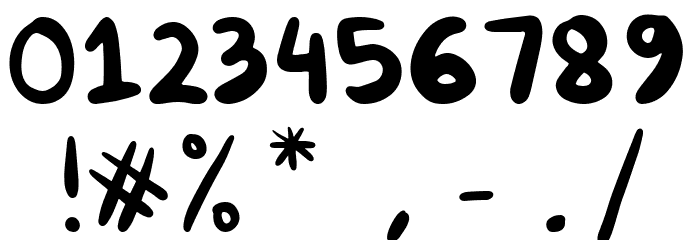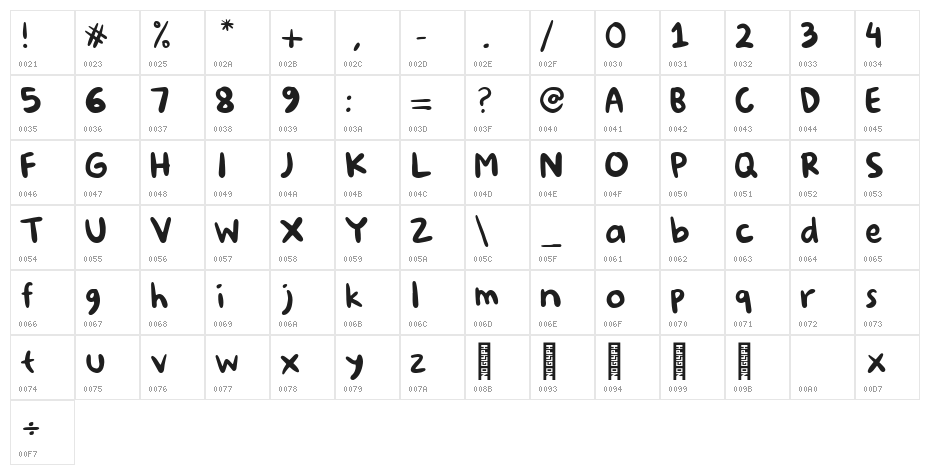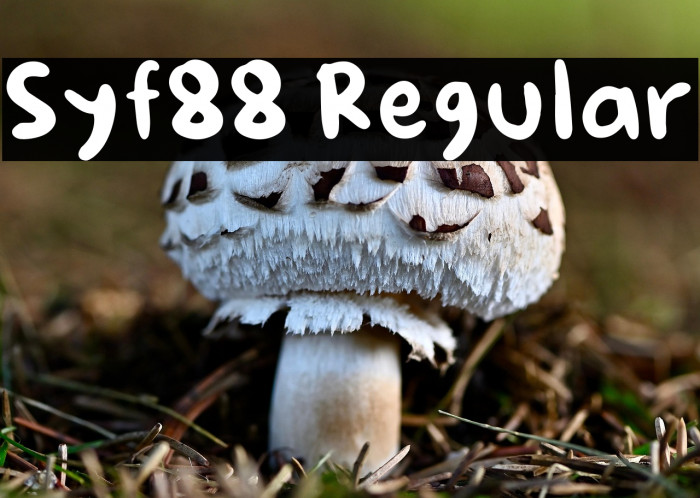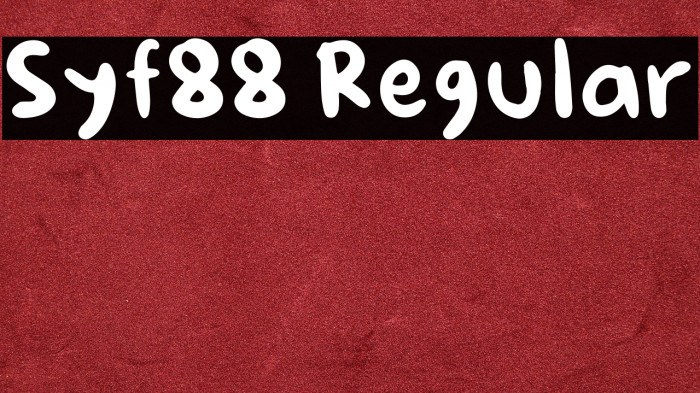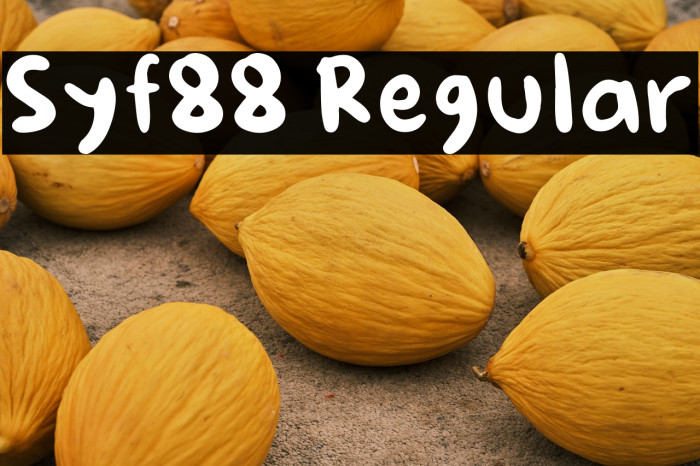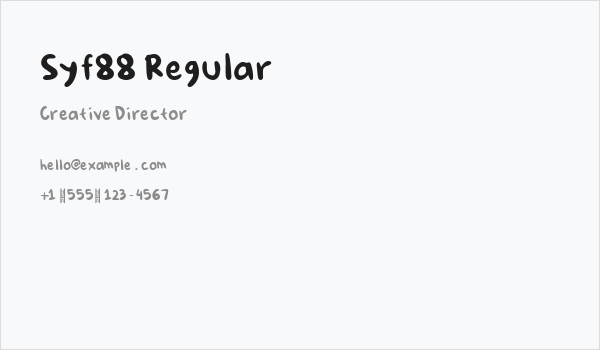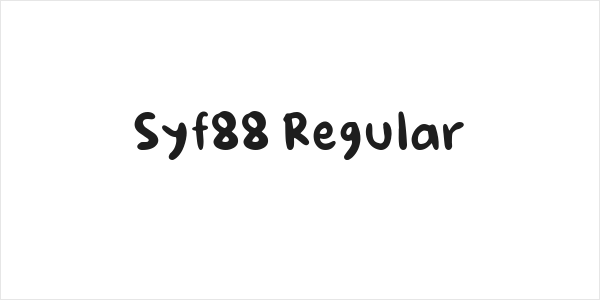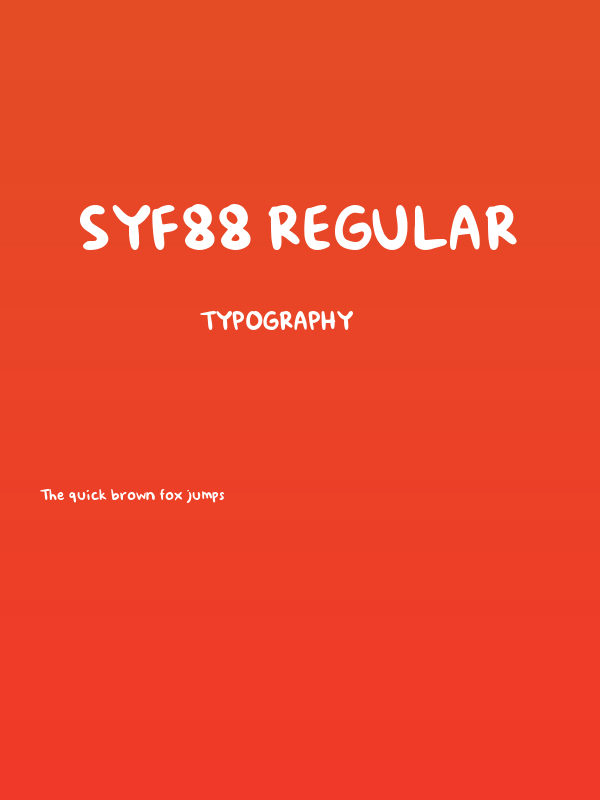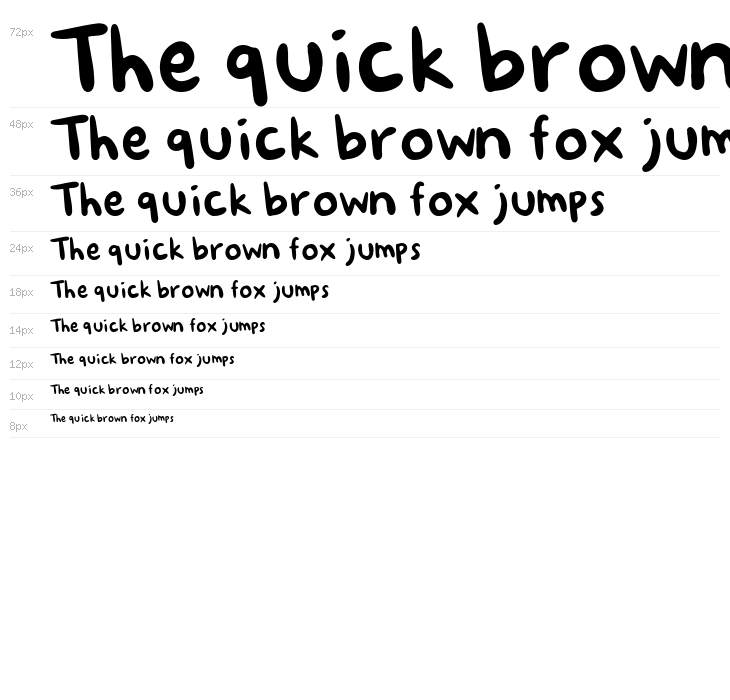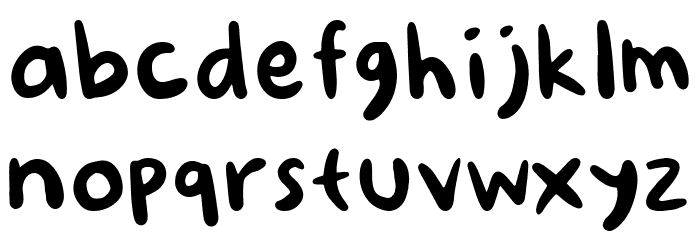
Syf88 Regular Font
Syf88 Regular Description
This playful and bold font features rounded, hand-drawn characters that exude a casual and friendly vibe. The letters are slightly irregular, adding a whimsical touch that makes it stand out. The uppercase and lowercase letters maintain a consistent style, with a smooth flow and a slightly exaggerated roundness. Numbers and special characters follow the same design principles, ensuring a cohesive look across all elements. The font's informal style makes it ideal for projects that require a personal, approachable feel.
| Proposed Projects | Perfect for children's books, casual branding, greeting cards, and playful posters. |